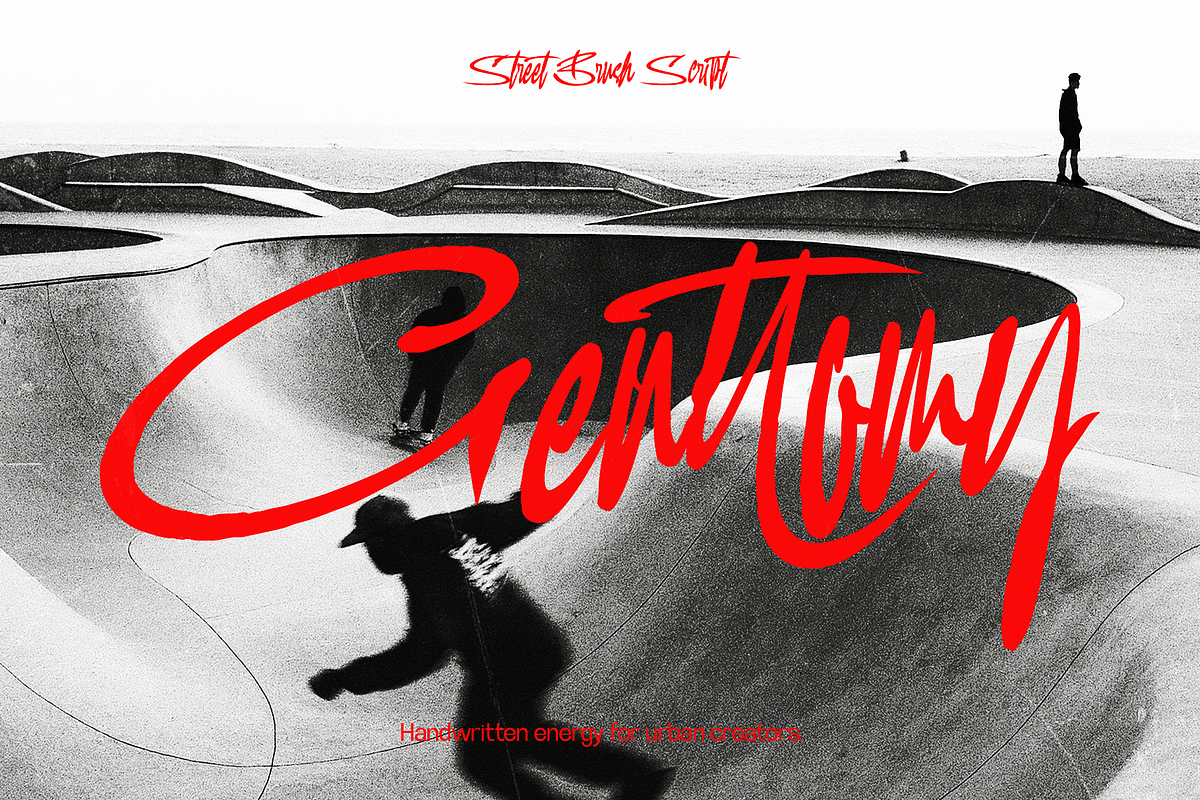
Genttomy – Brush Script Font
Genttomy – Brush Script Font is a clean and thoughtfully built typeface that works seamlessly for both professional branding and everyday creative uses. Genttomy is a street-inspired brush script font with bold, expressive strokes and fast rhythm. Crafted for urban creators, it delivers attitude and personality in every letterform. Perfect for posters, music covers, apparel graphics, and streetwear branding. Its high contrast and hand-brushed texture add intensity and flow to any visual message. Make a statement with movement, energy, and authenticity that hits hard and stands out.